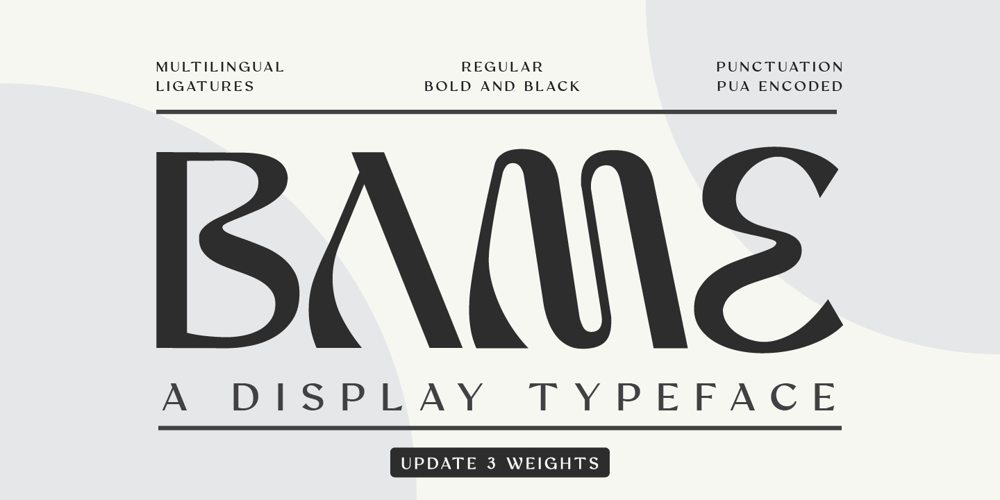
Bame Font Family was designed by Iqbal Pauji and published by Typebae. Bame contains 3 styles and family package options. BAME is a display typeface. Has a distinct curve and a lively personality. Ideal for projects that require a distinct personality.What’s Included? Stylish & Standard Caps Numbers & Punctuation 14 Ligatures Multilingual Support PUA Encoded